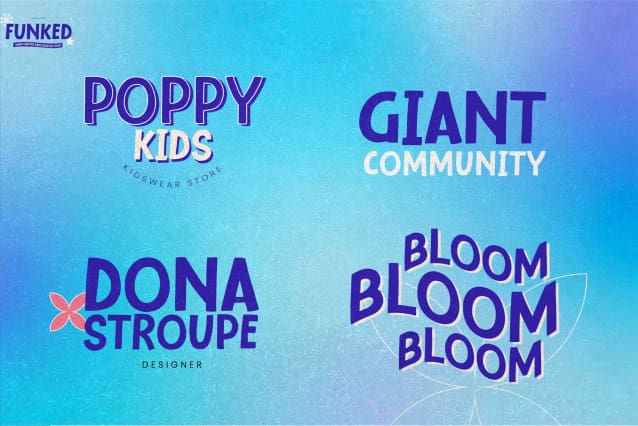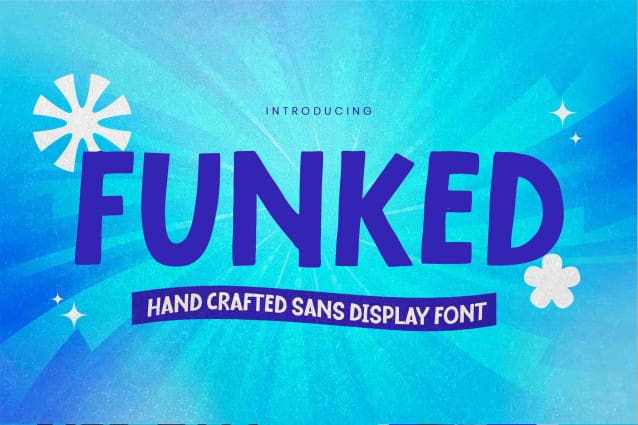
Funked Display Font
Funked Display Font – This is Hand Crafted Sans Display Font, this is a sans font with craft style and simple, this font is perfect for making a strong statement in your designs.
Add the bold and authentic character of this Font to your next project and capture the essence of the minimalist aesthetic.